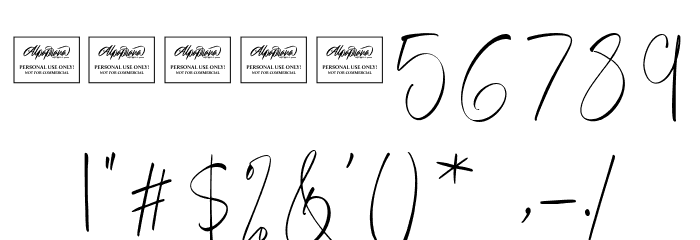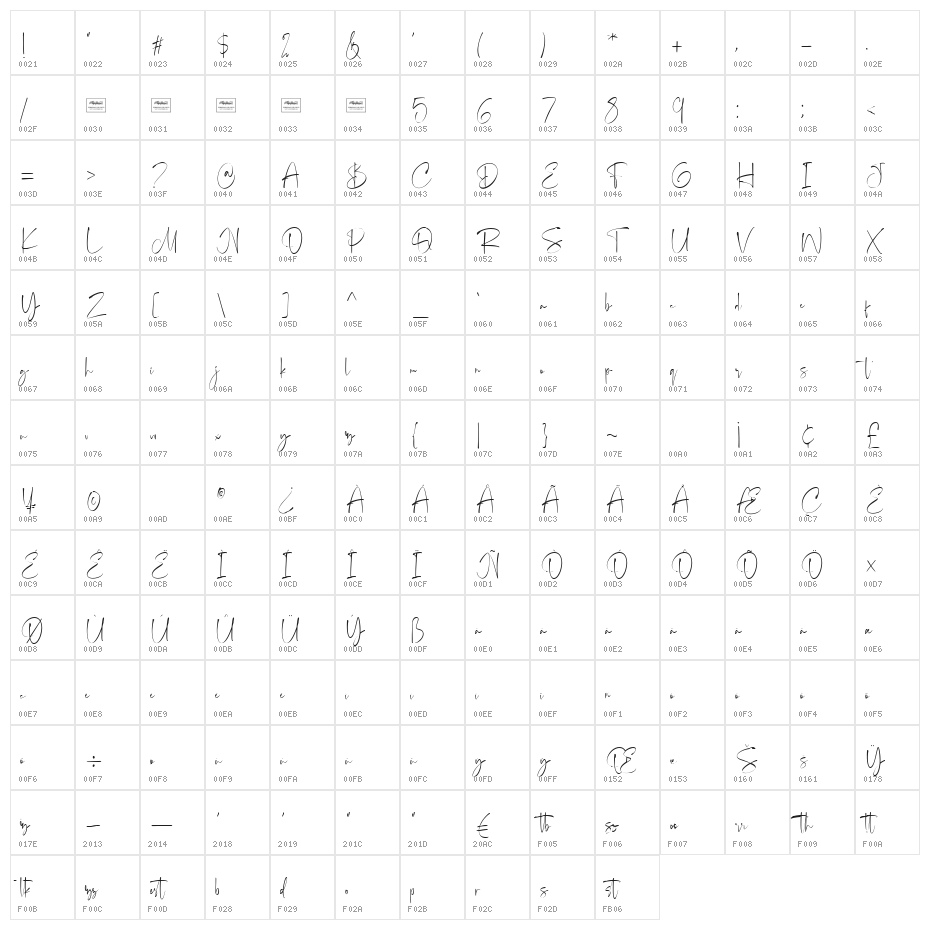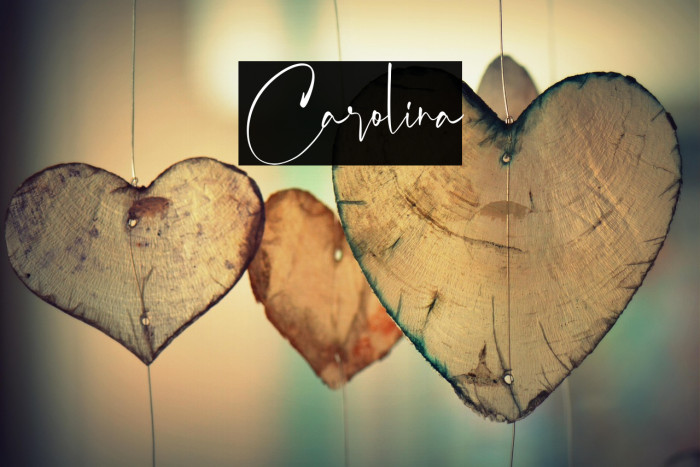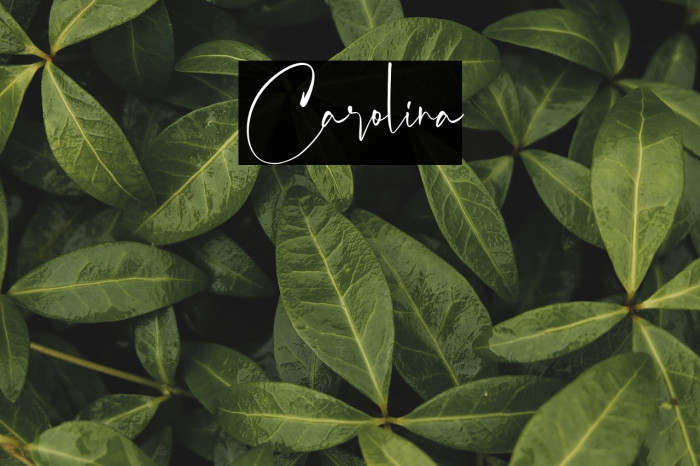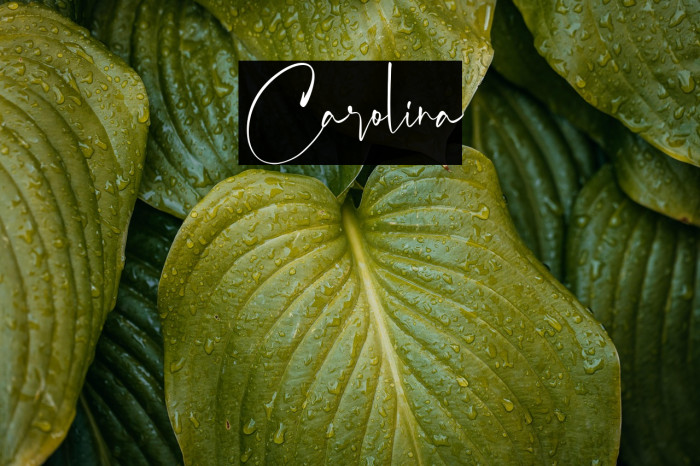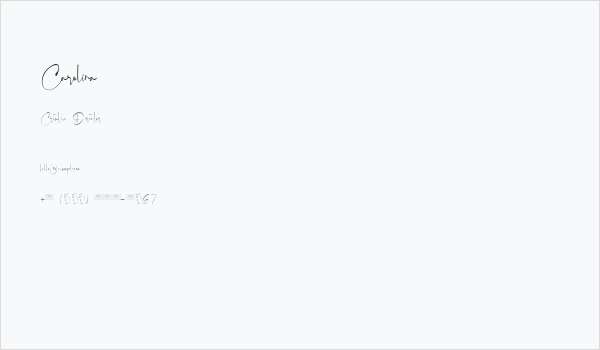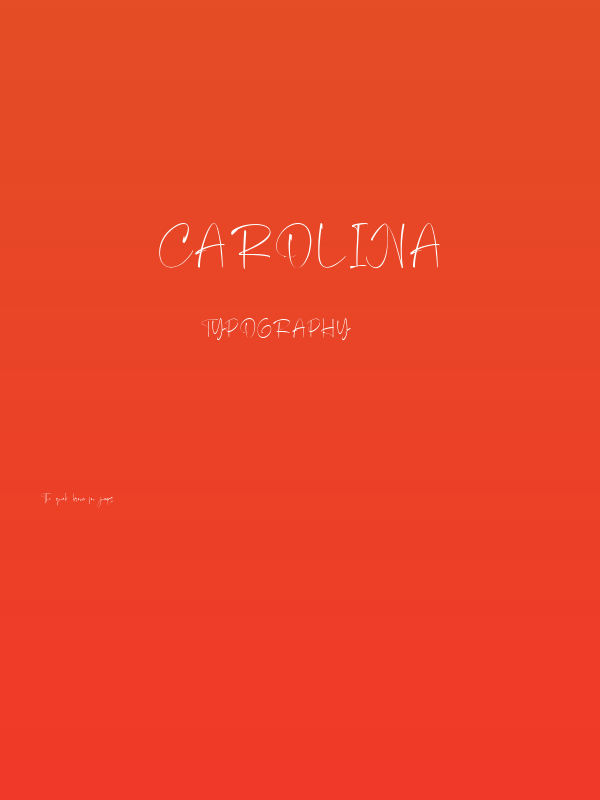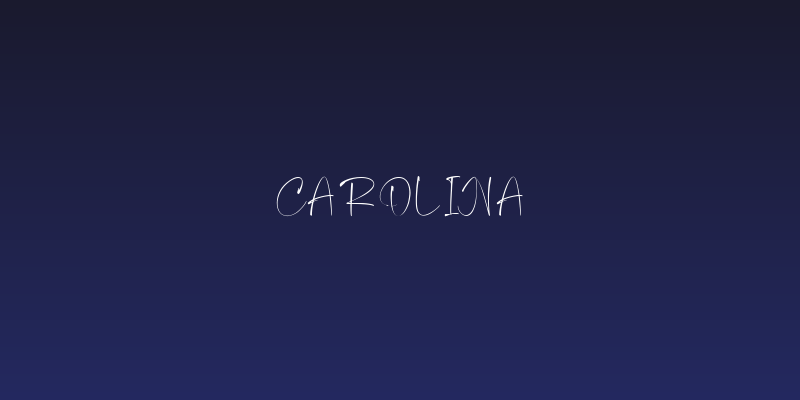
Carolina Font
Carolina Description
This font features a modern, handwritten style with a playful and artistic flair. The uppercase letters are tall and slender, with a slight slant that adds a dynamic feel. The lowercase letters are more fluid and connected, resembling elegant cursive handwriting. The numbers maintain the same slender and slightly slanted style, ensuring consistency throughout. Special characters are designed with the same attention to detail, making them blend seamlessly with the rest of the font. The overall appearance is both sophisticated and approachable, making it suitable for a variety of creative projects.
| Use Case | Logos, Invitations, Social Media Graphics |
| Proposed Projects | Ideal for wedding invitations, greeting cards, branding, and social media graphics. |